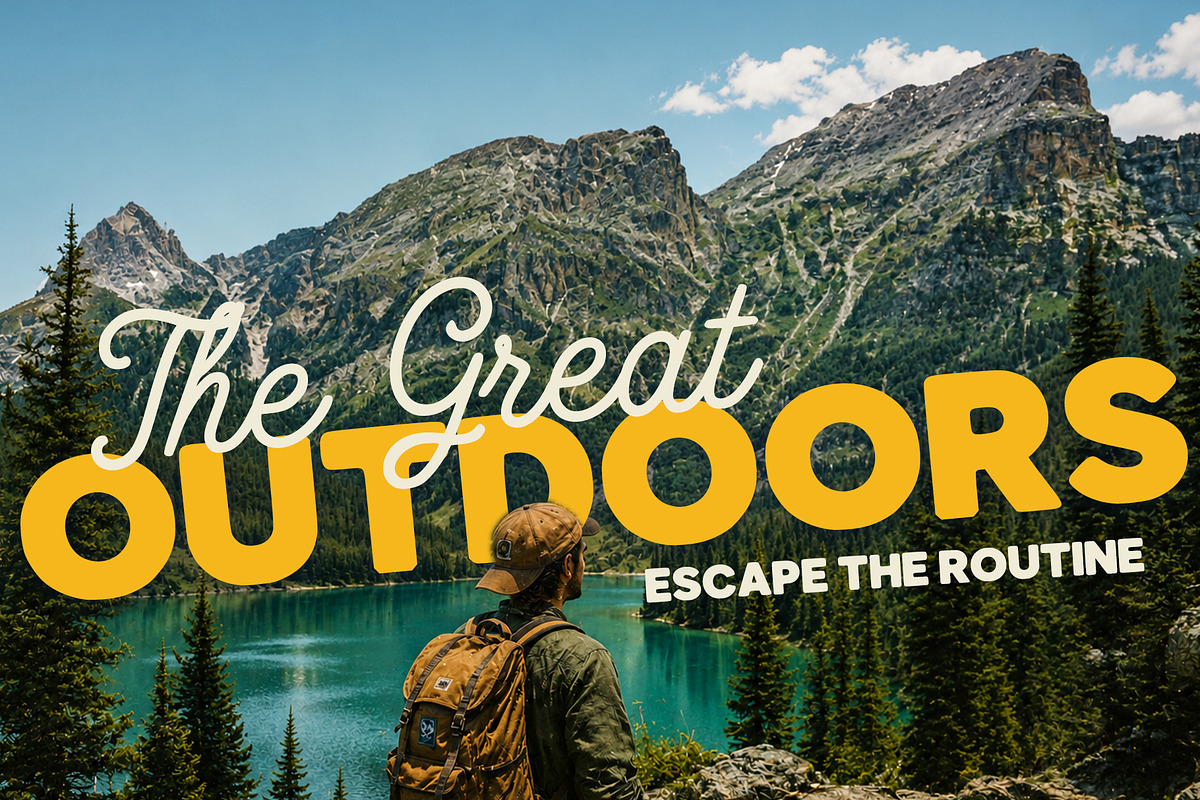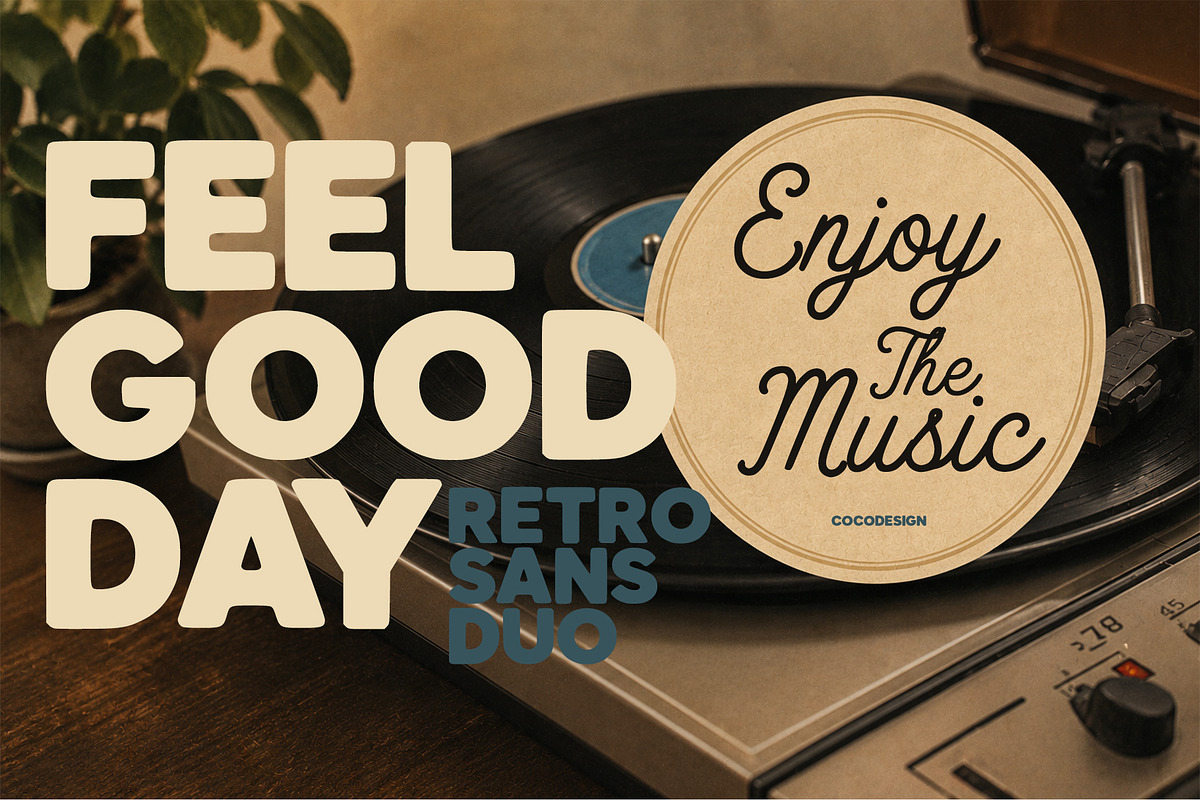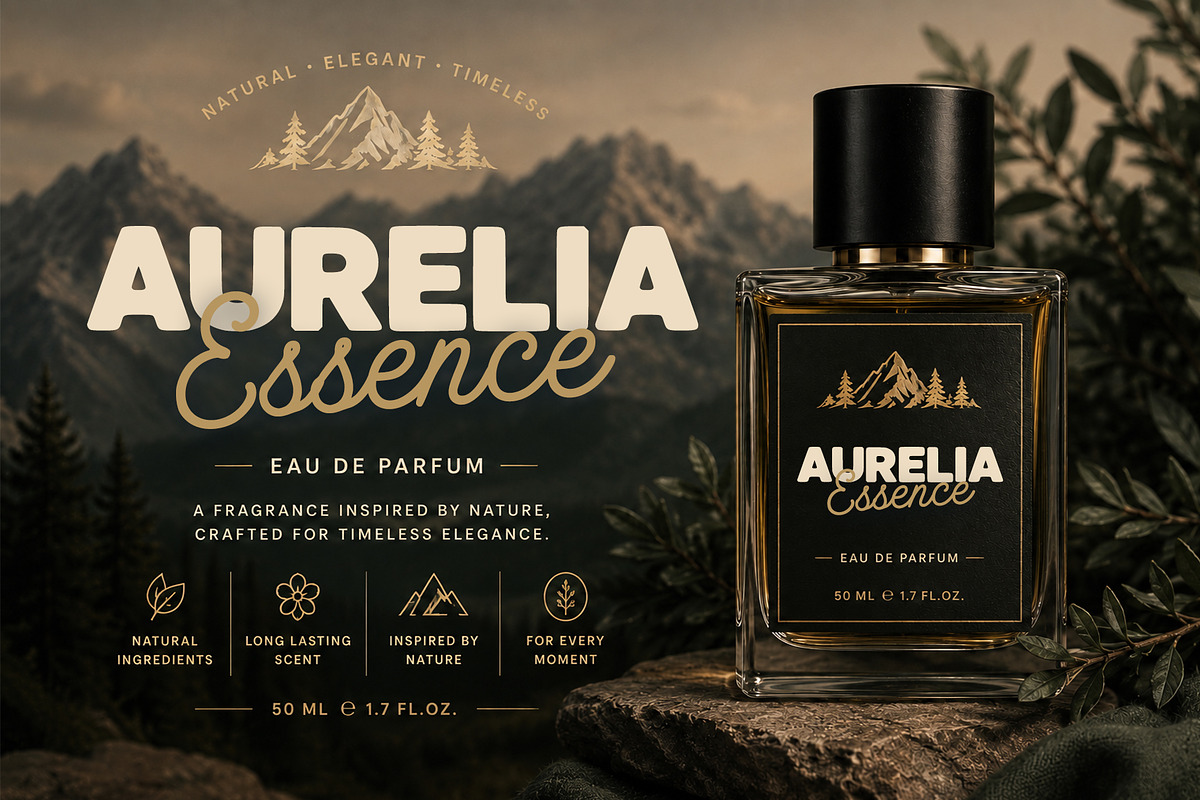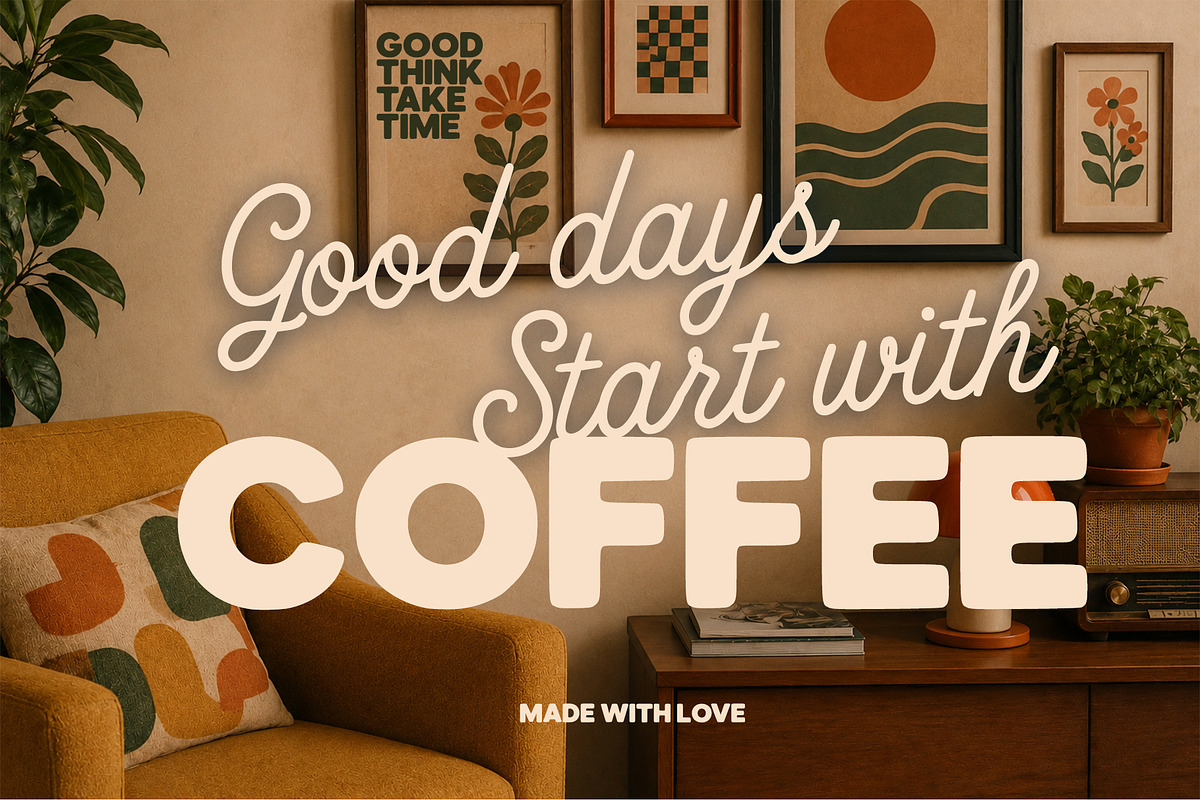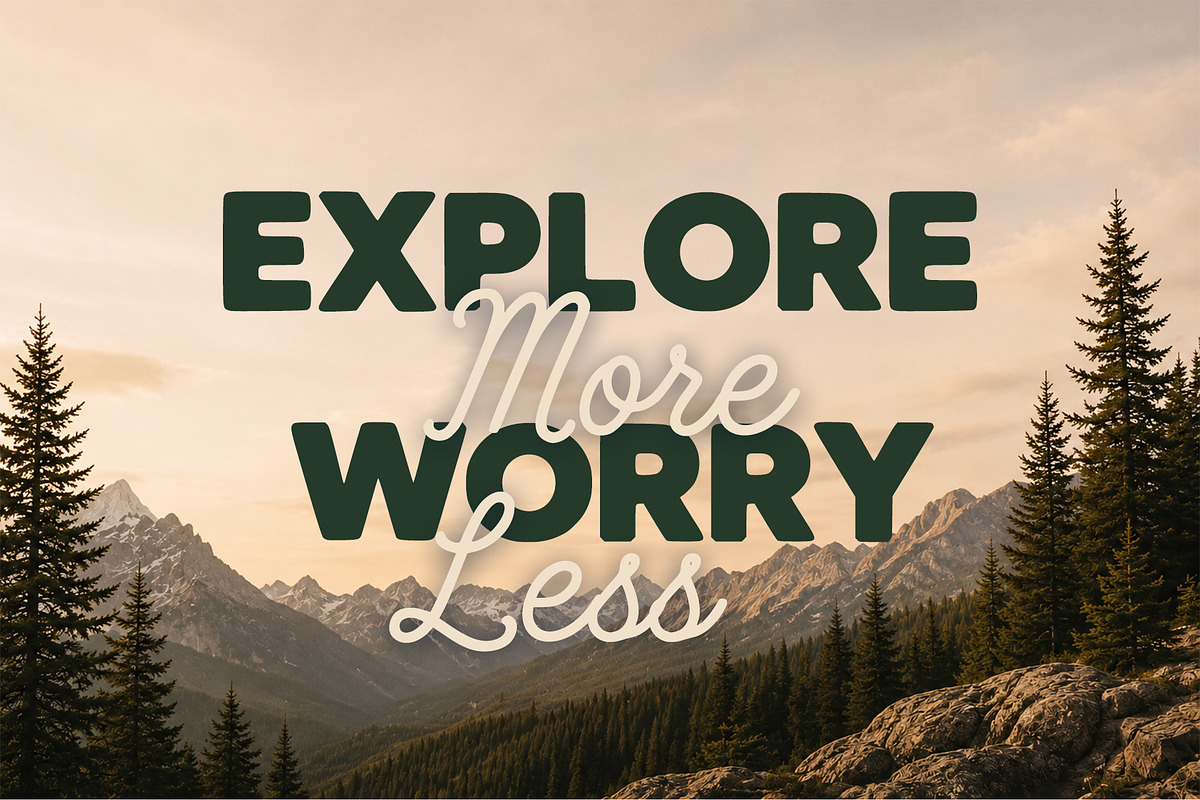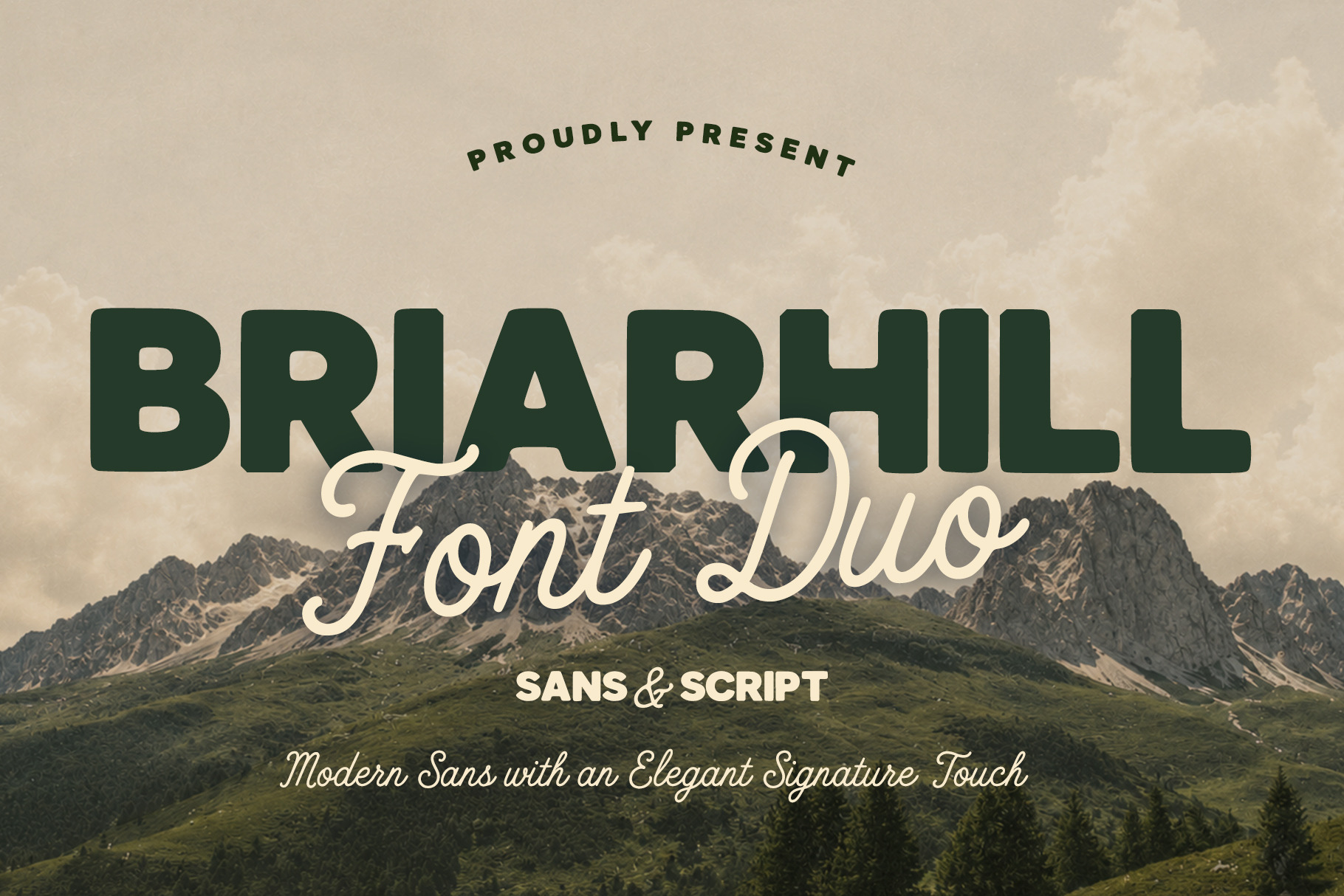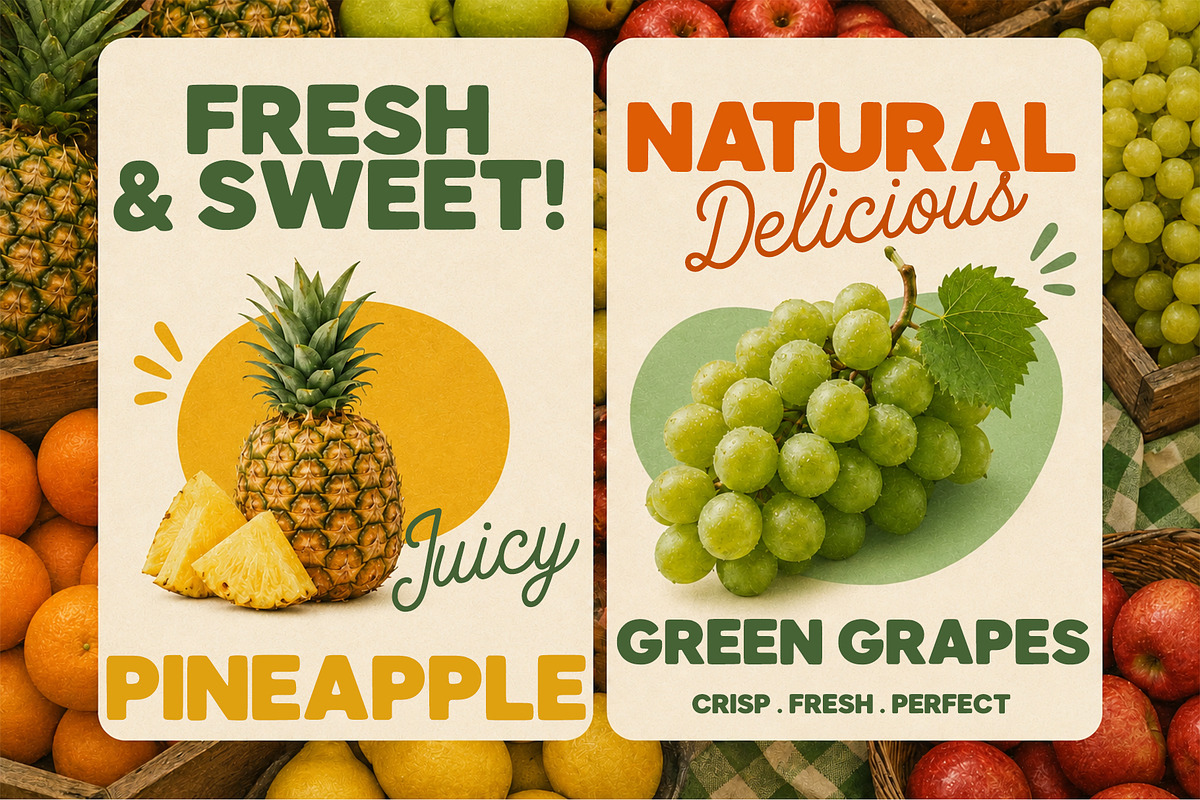
Briarhill Font Duo
Briarhill is a beautifully crafted font duo that combines a bold geometric sans serif with a flowing signature script. Designed to create eye-catching typography, this versatile pairing delivers the perfect balance between strength and elegance.
The bold sans serif offers a clean, modern look with confident letterforms, while the handwritten script adds warmth, sophistication, and a natural signature feel. Together, they create stunning typography for both branding and creative design projects.
Whether used individually or paired together, Briarhill makes it easy to build professional, stylish, and memorable designs.